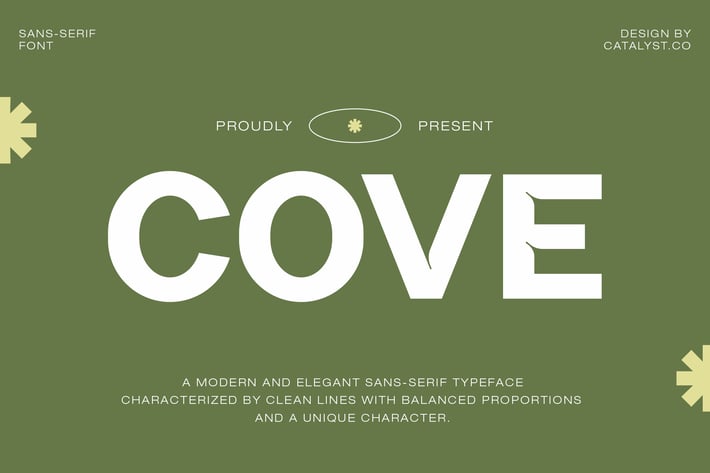
Cove Sans Serif Font
Cove Sans Serif Font is a modern and elegant sans-serif typeface exuding sophistication and clarity. Its style is clean and contemporary, providing a sense of trust and professionalism, making it ideal for the modern Instagram aesthetic, corporate branding, and high-end product presentations. The font features a geometric letterform structure with balanced proportions and uniquely crafted characters that set it apart. COVE is best used for creating impactful logos, compelling website headlines, sophisticated editorial designs, and premium packaging solutions where a touch of understated elegance is desired. Its versatility allows it to adapt to a wide range of design needs while maintaining a consistent visual identity.
Cove Sans Serif Font Suitable for branding, web design, editorial layouts, marketing materials, product packaging, social media graphics, presentations, and UI design.